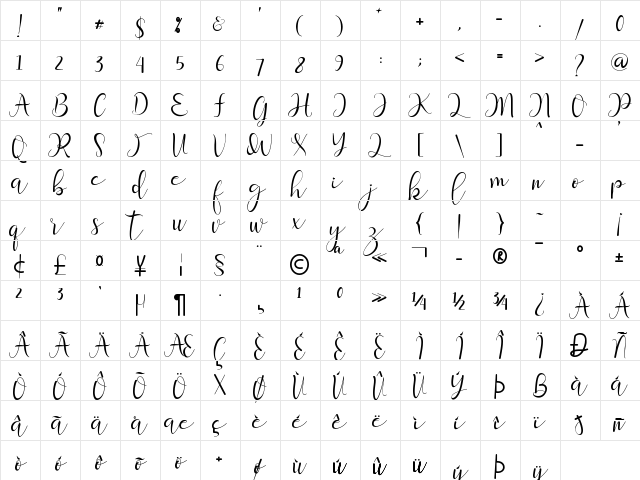
Shalitta Regular
| Designer | Yogaletter 2020 (Isroni Yoga Prasetya) |
Design Context for Shalitta Typeface
Shalitta is a composed and adaptable typeface that performs quietly and consistently across a wide range of design contexts.